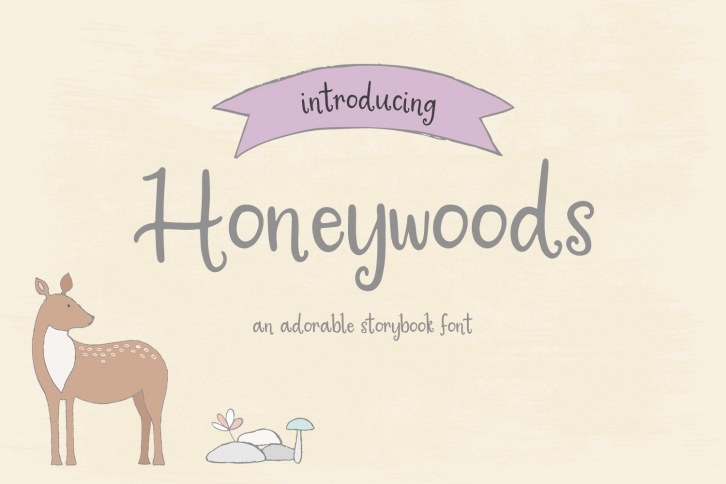
Honeywoods Storybook Serif is a great font that was designed by BeckMcCormick. Imagine the amount of combinations you can create using this font! The archive is 4.48 MB and it was released on August 24, 2020. Honeywoods Storybook Serif looks beautiful on wedding invitations, greeting cards, logos, posters, labels, t-shirt designs, logos, business cards and is perfect for use in ink or watercolor works, fashion, magazines, packaging and food menus, children's books and more!